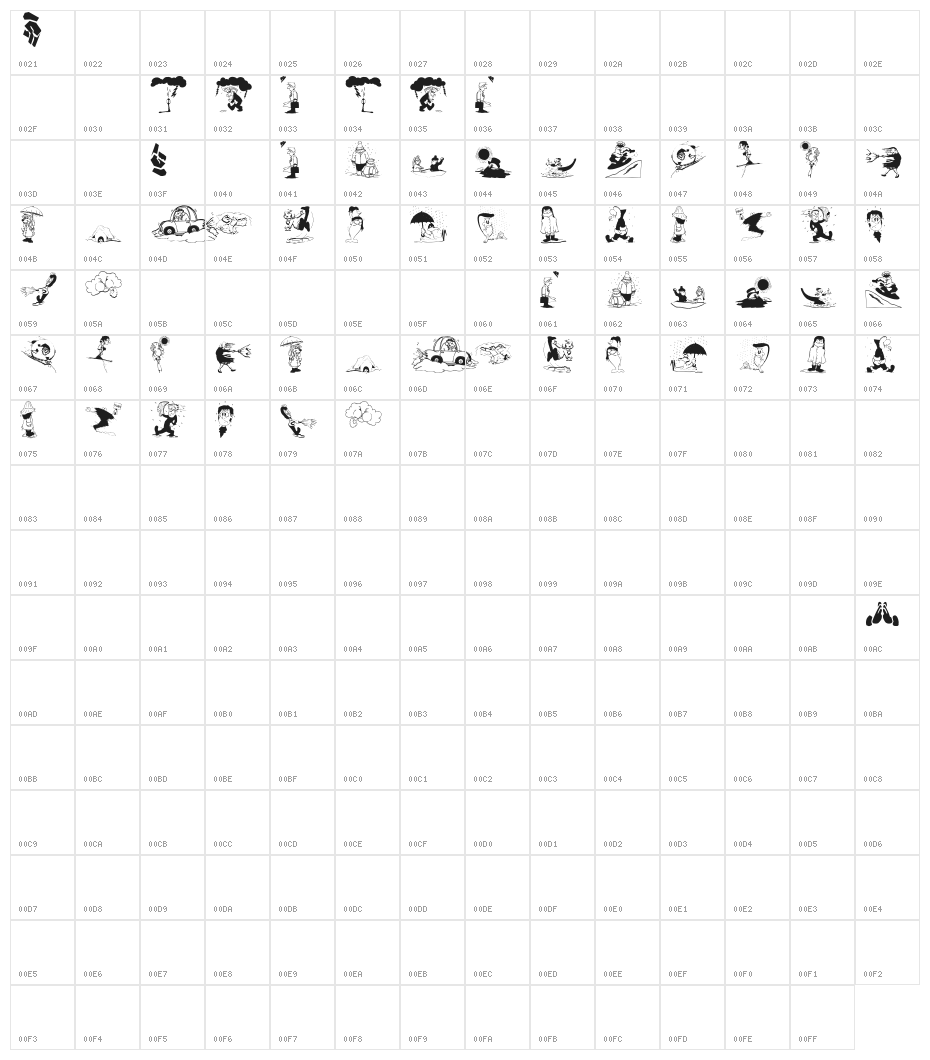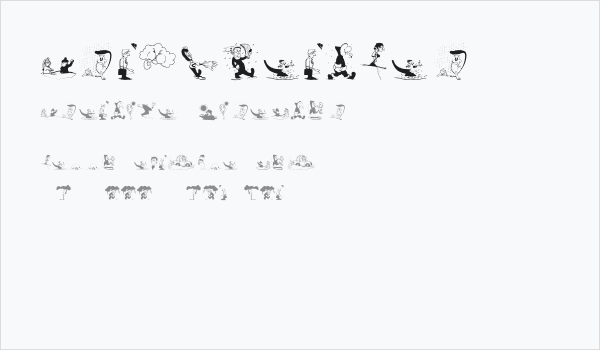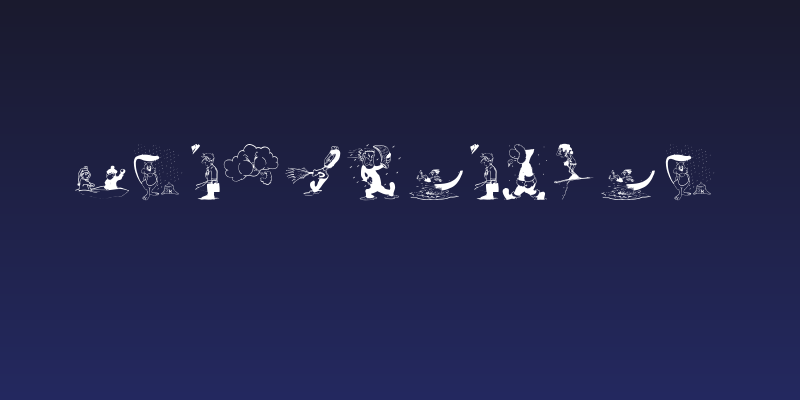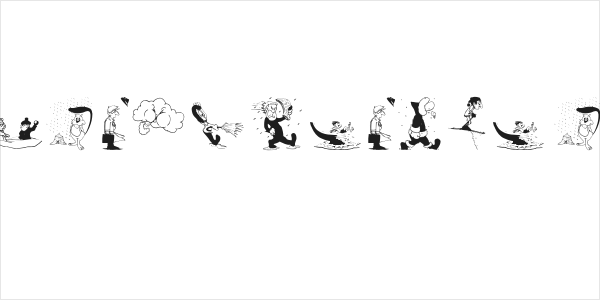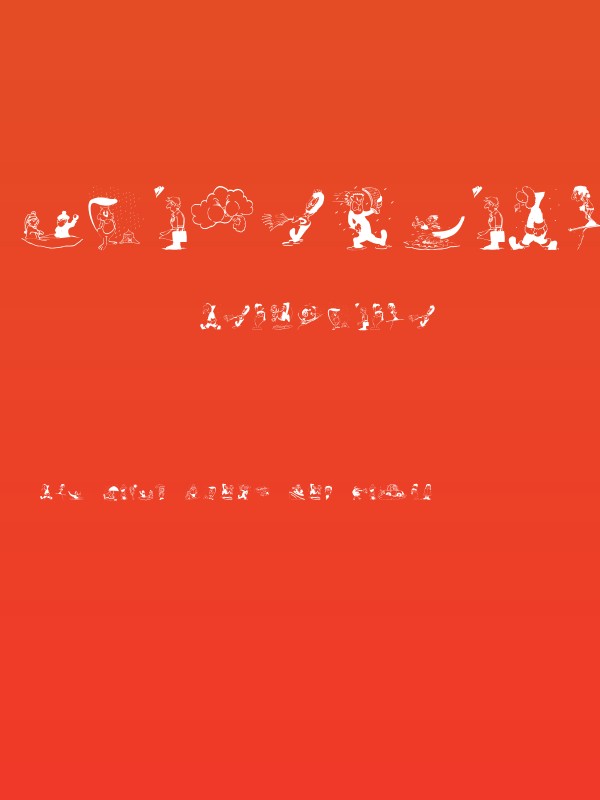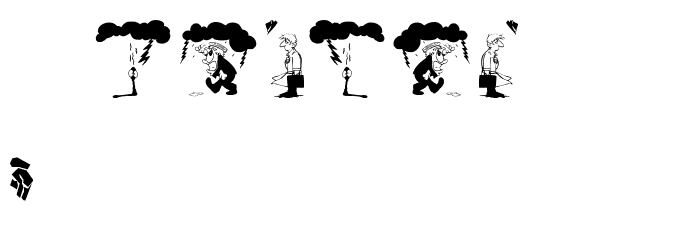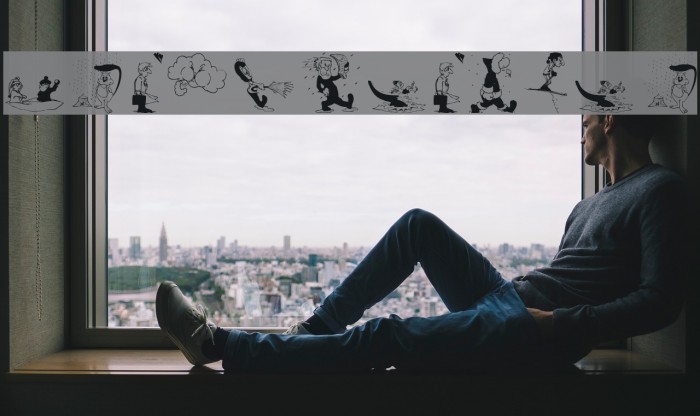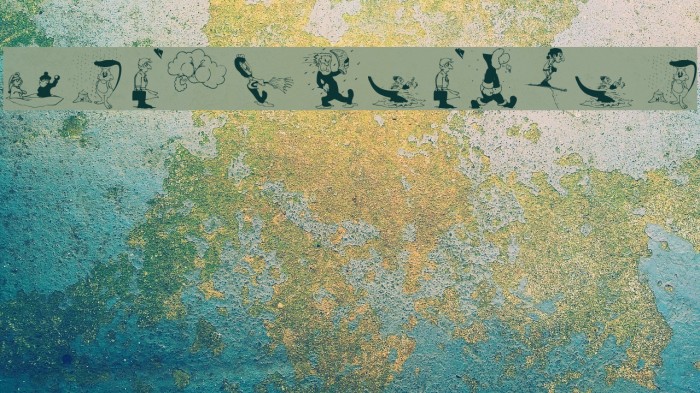
CrazyWeather Font
| Overall Style | Playful, Whimsical, Decorative |
| Use Case | Illustrative icons, Thematic graphics, Decorative accents |
| Proposed Projects | Children's books, educational materials, weather apps, playful posters, greeting cards. |